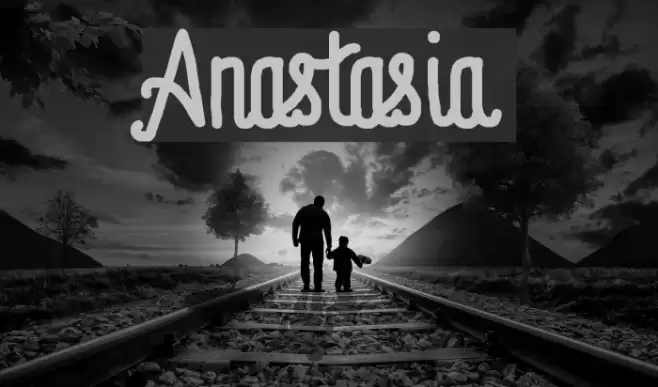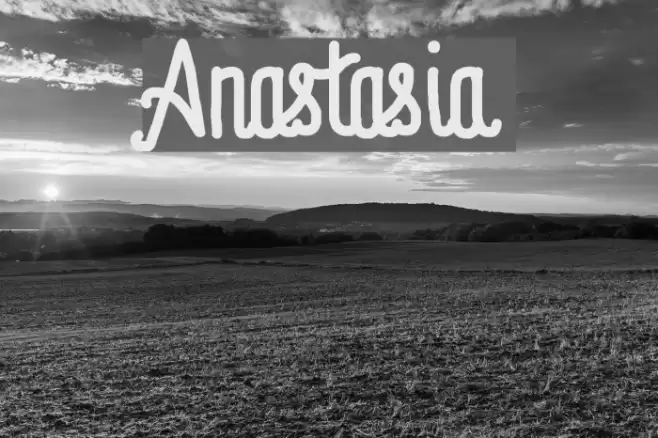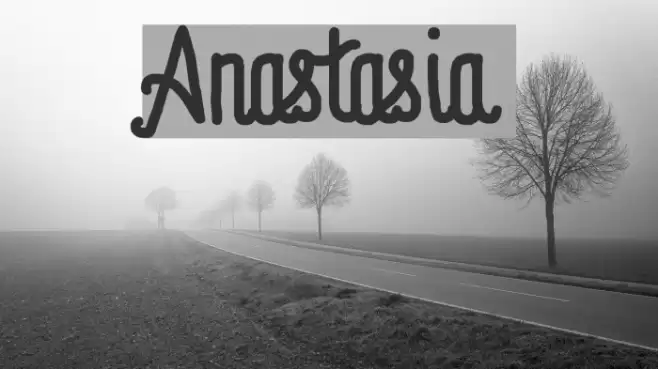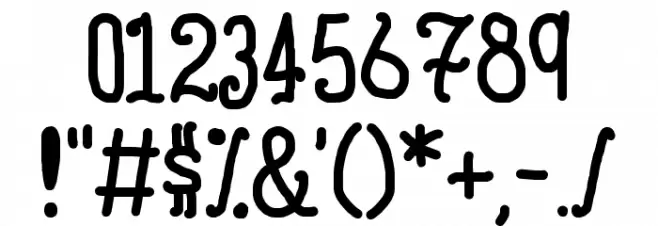
Anastasia Font
Anastasia Description
This font features a unique and playful script style with a handwritten appearance. The characters are interconnected with a flowing, cursive design that gives it a whimsical and artistic feel. The uppercase letters are bold and prominent, while the lowercase letters maintain a consistent style with slightly more subtle curves. Numbers and special characters follow the same playful theme, making this font ideal for creative projects. The overall look is both modern and artistic, with a touch of vintage charm.
A playful, handwritten script font with interconnected characters from Uncategorized fonts.
- Proposed Projects: Ideal for creative projects such as greeting cards, invitations, posters, and artistic branding.
- Overall Style: Playful, Artistic, Modern
- Use Case: Logos, Invitations, Posters